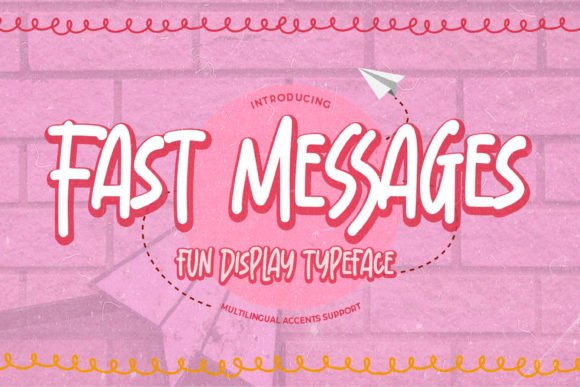
Introduction to Fast Messages Font
Fast Messages is a unique and fun display font.
It looks amazing on various informal projects, happy moment decorations, and any other design that requires a happy mood Add this beautiful font to your creations and take your designs to the next level.